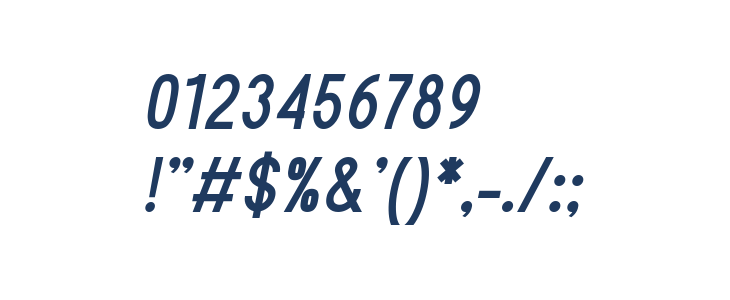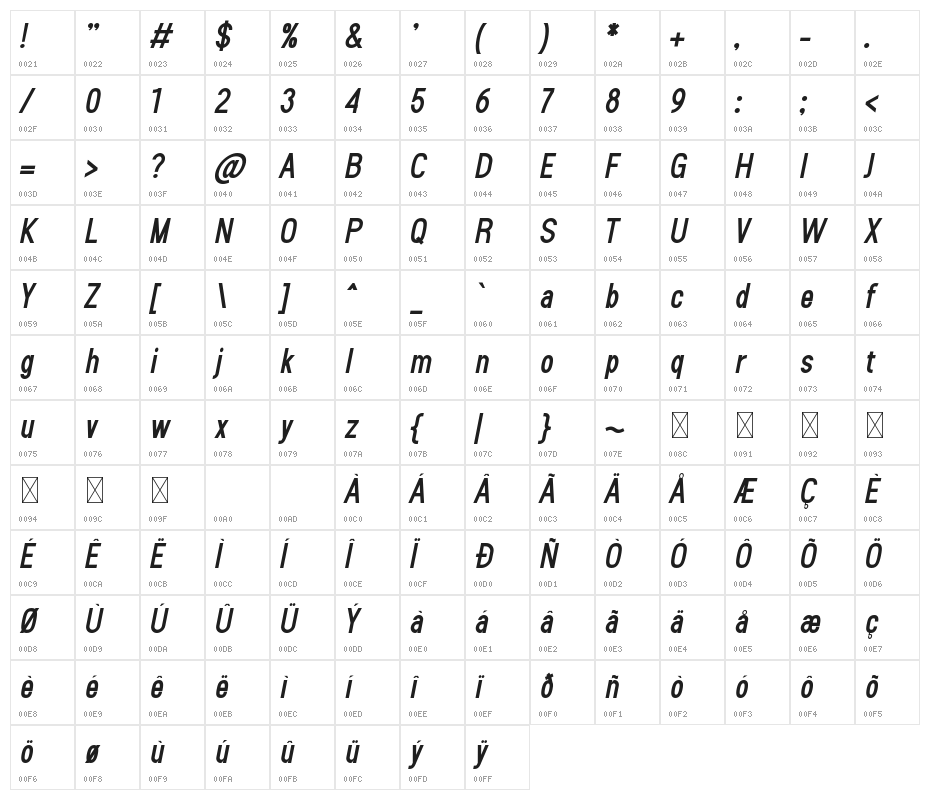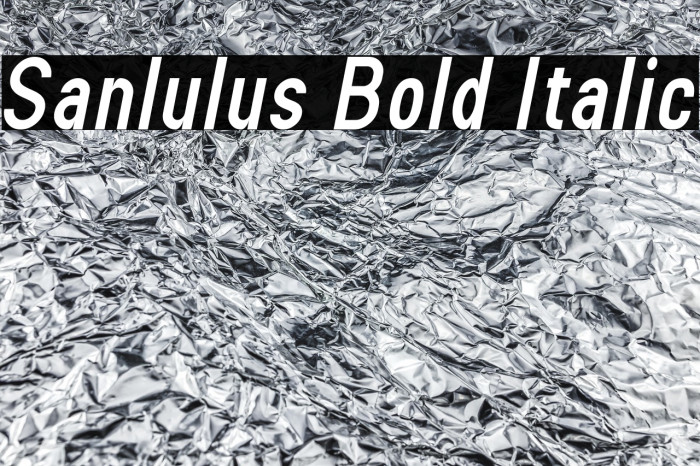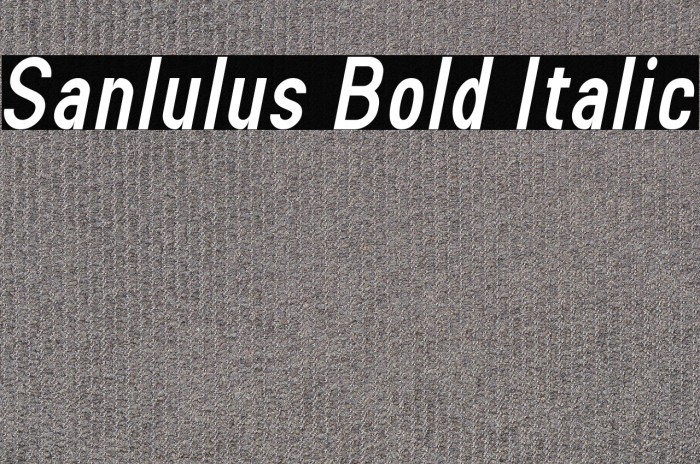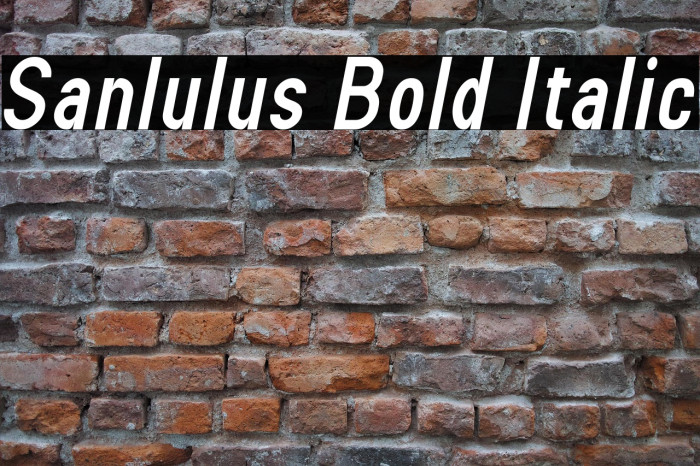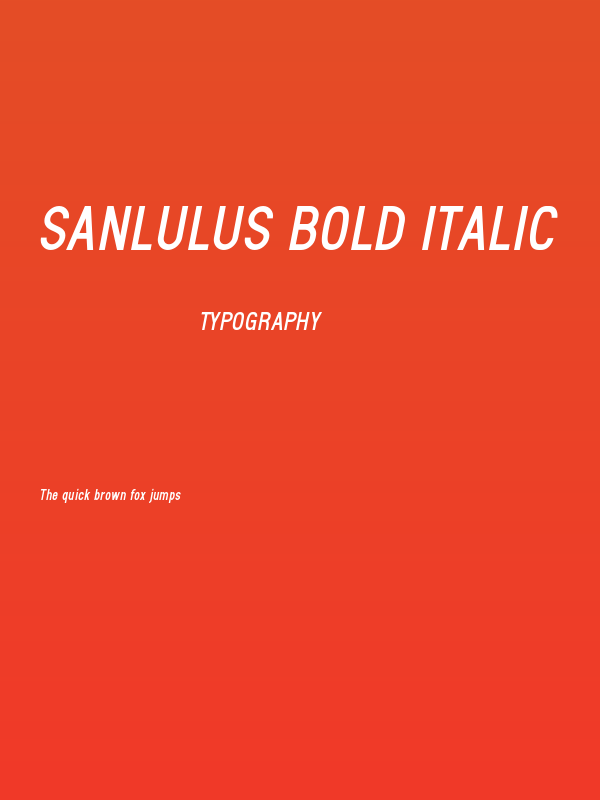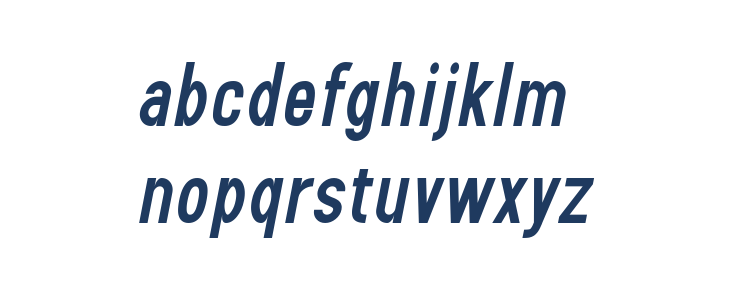
Sanlulus Bold Italic Font
Sanlulus Bold Italic Description
This font features a bold and italicized style, characterized by its strong and assertive appearance. The letters are slightly slanted, adding a dynamic and energetic feel. The strokes are thick and consistent, providing a sense of stability and confidence. The uppercase and lowercase letters are well-proportioned, ensuring readability across various sizes. The numerals are clear and distinct, making them suitable for both display and text settings. Special characters are included, maintaining the font's cohesive look. Overall, this font is versatile and can be used in a variety of design projects.